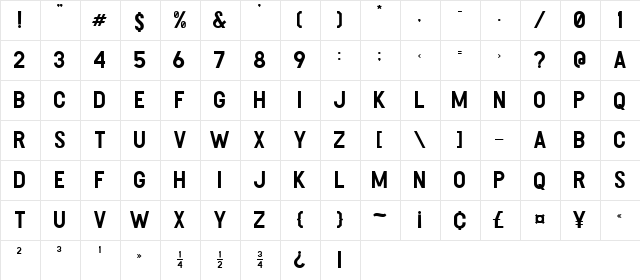
Heller Regular
Design Context for Heller Typeface
Heller is a composed and adaptable typeface that performs quietly and consistently across a wide range of design contexts.
Pro Tip: Pair Heller with a font of contrasting weight or personality to build a more expressive typographic hierarchy.